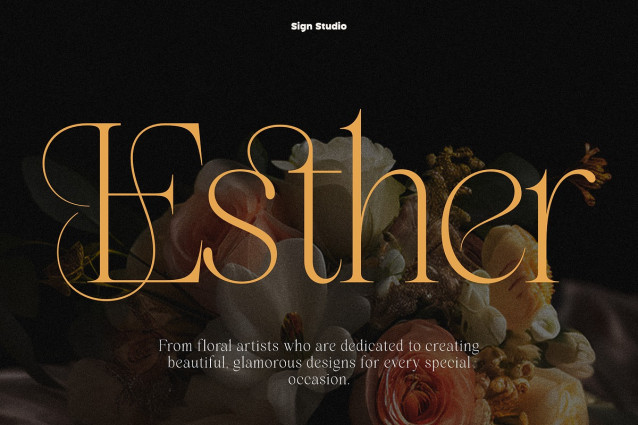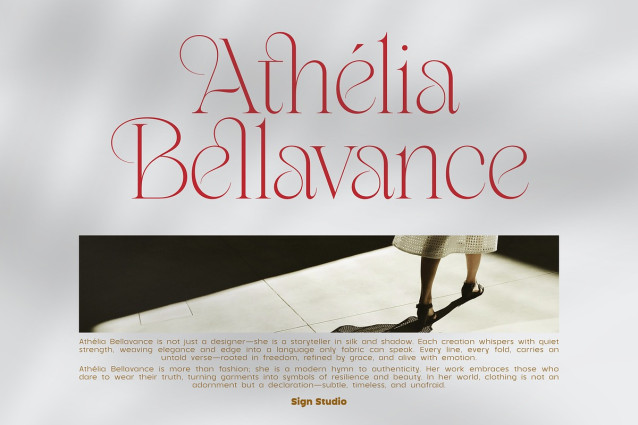
Miralova Font
Miralova Font is a sophisticated serif typeface that blends classical structure with modern clarity. Designed with balanced proportions and high-contrast strokes, it delivers a calm yet confident presence across both print and digital applications.
Its carefully crafted true italic is developed independently, offering authentic movement and refined expression rather than a simple mechanical slant. This makes Miralova equally compelling for editorial layouts, branding systems, refined logos, and premium packaging.
Available in five precisely crafted weights—from Light to Bold—Miralova functions as a cohesive typographic system. Each weight maintains structural consistency while providing enough distinction to establish hierarchy and rhythm within complex layouts.